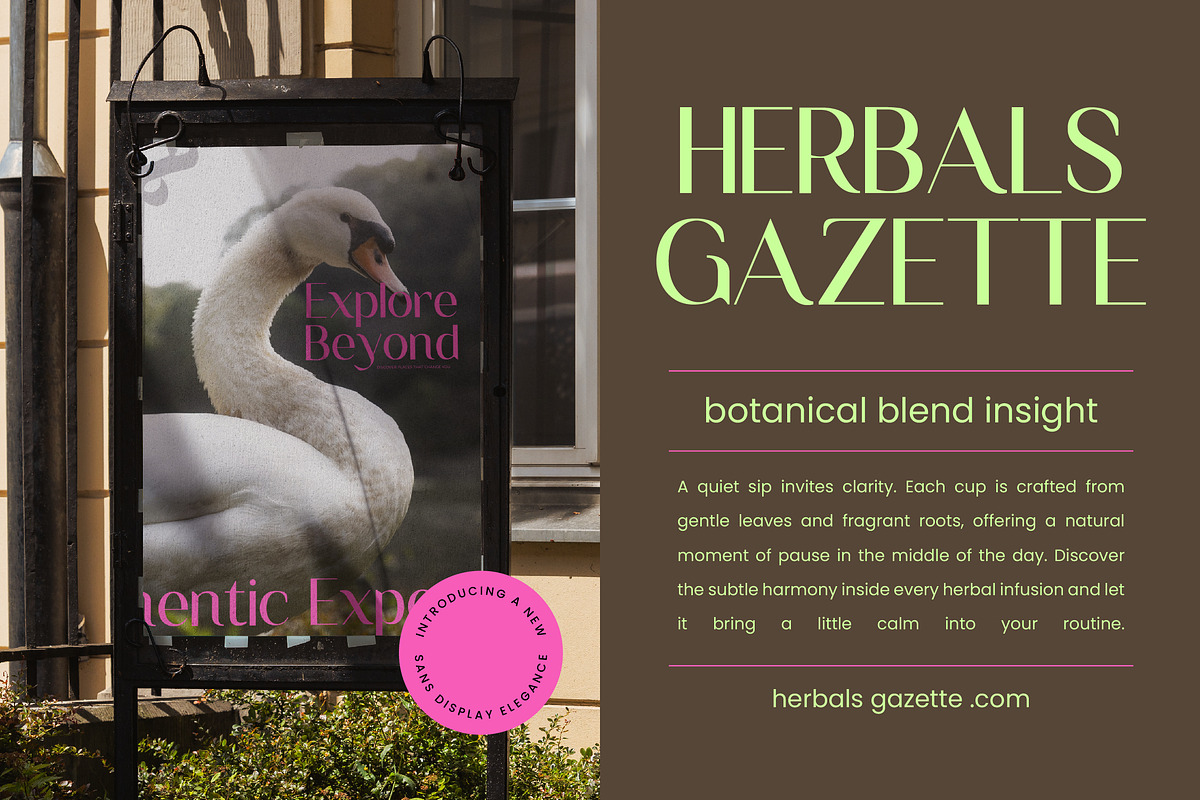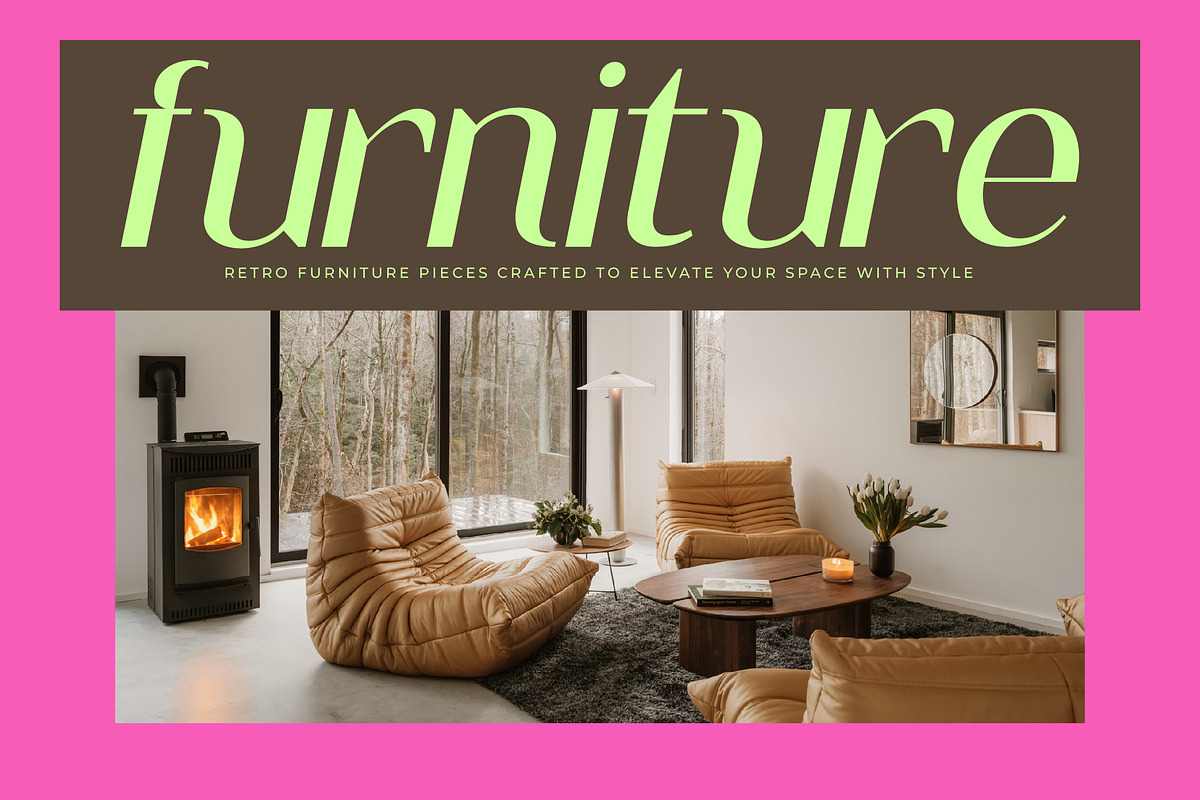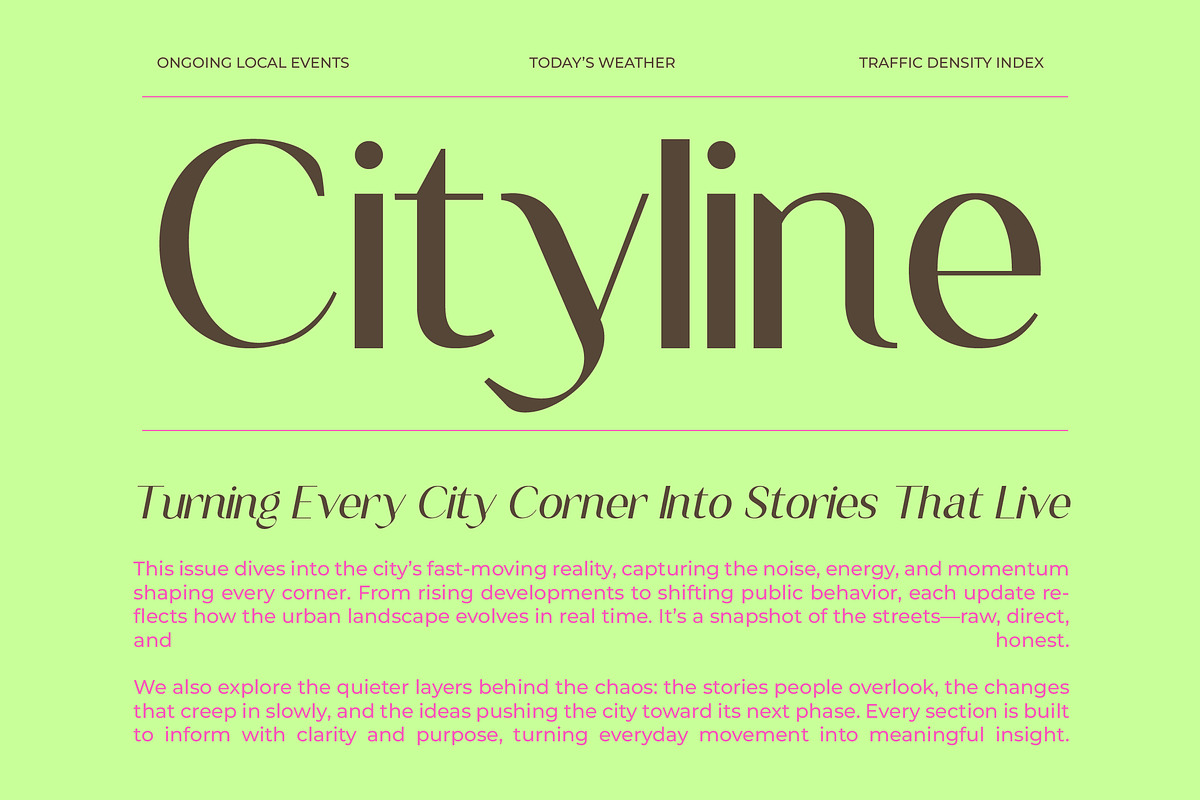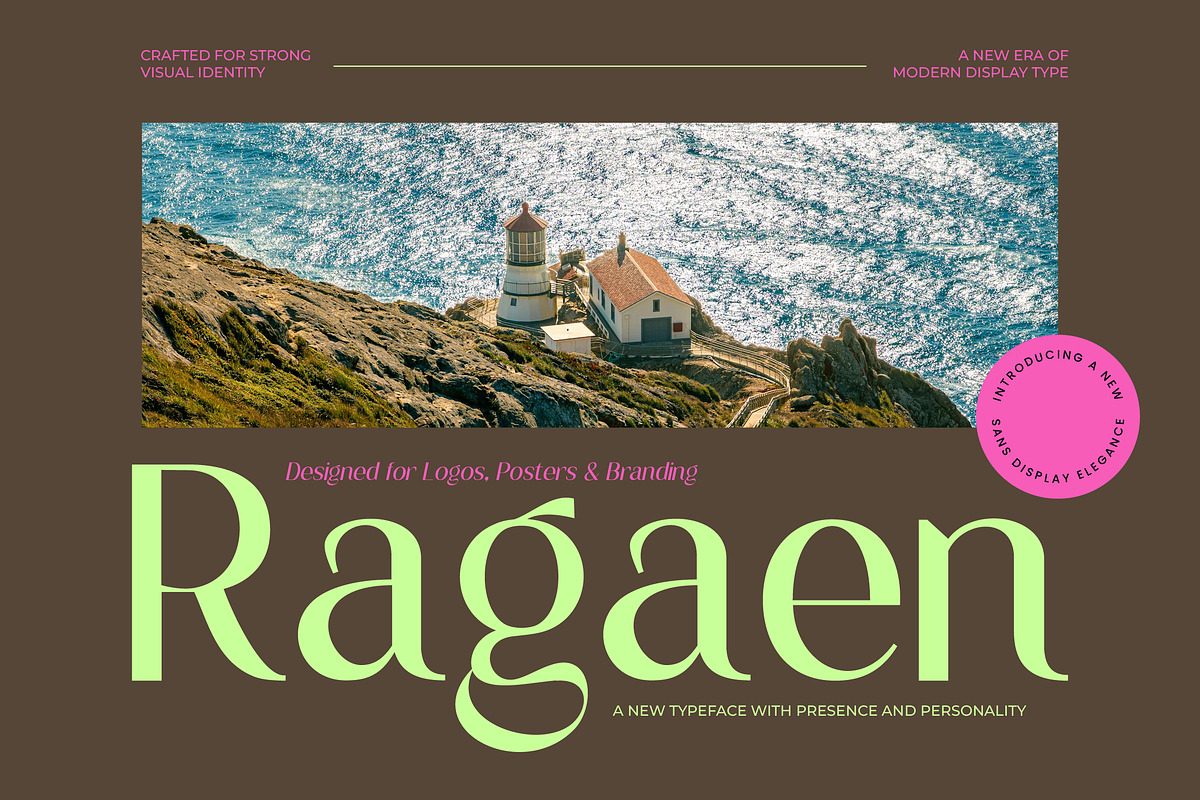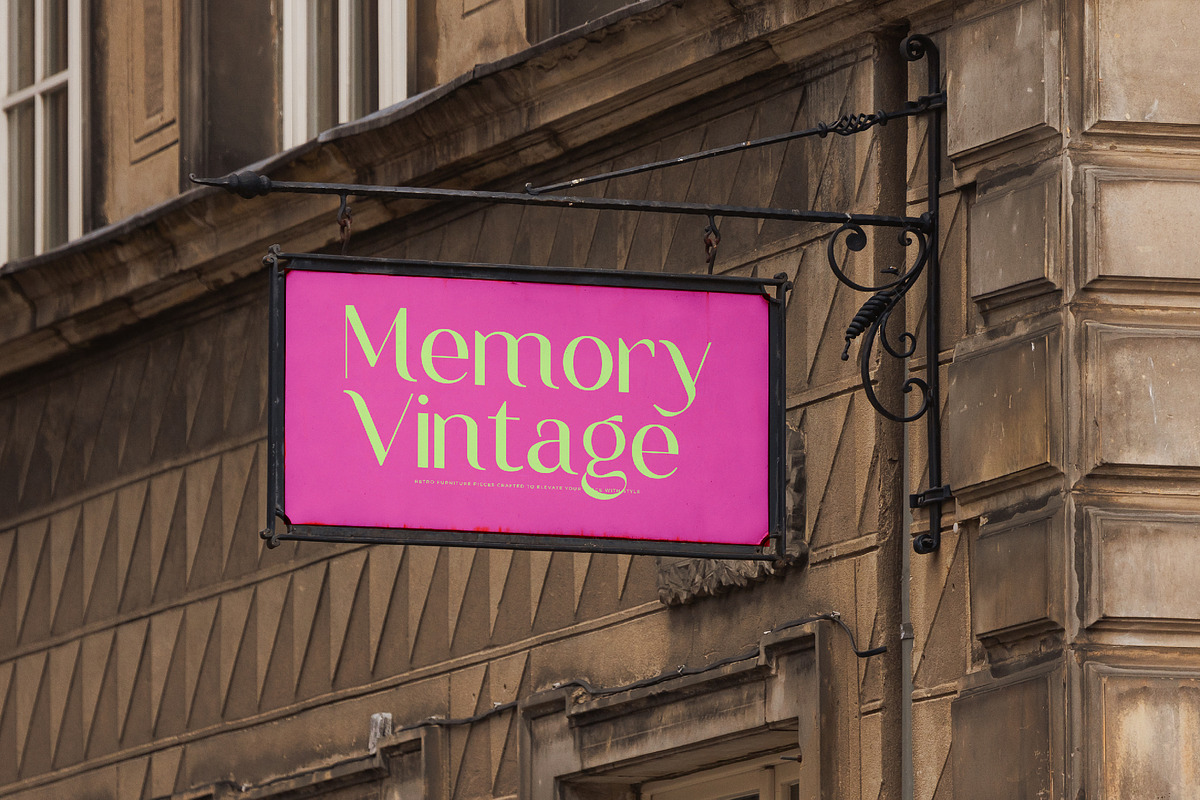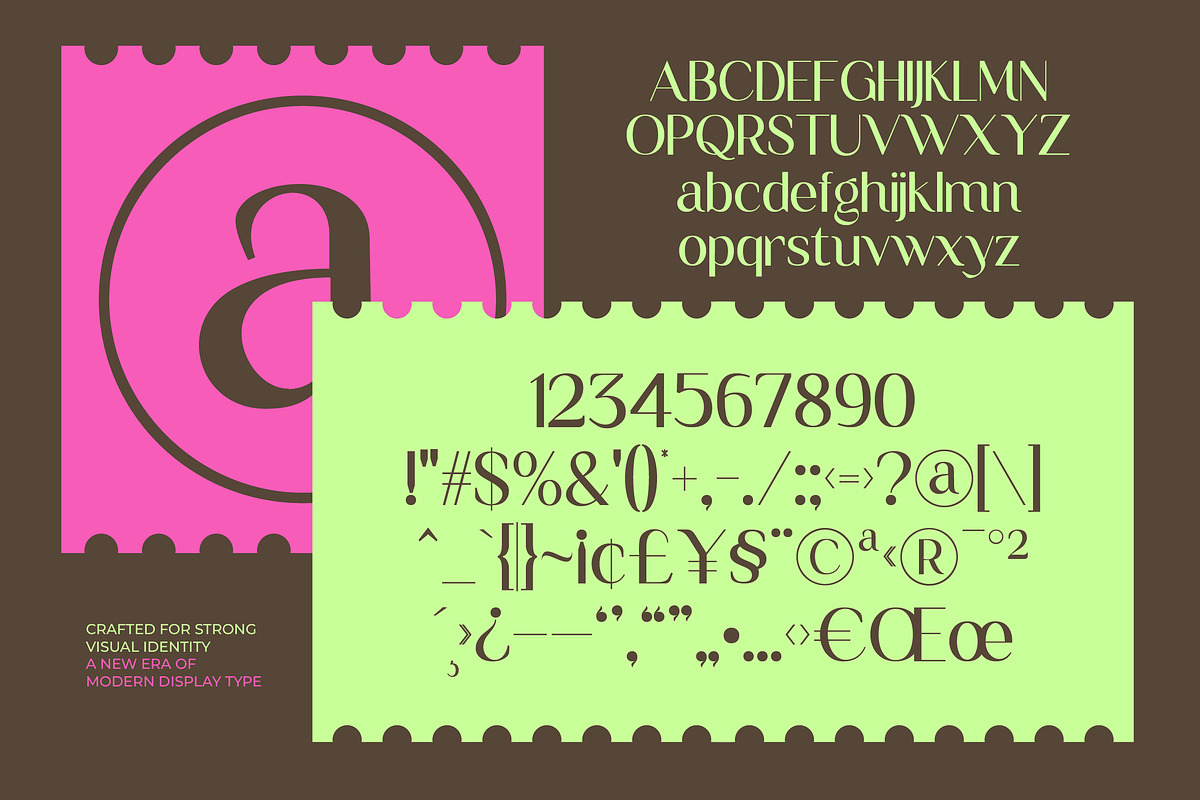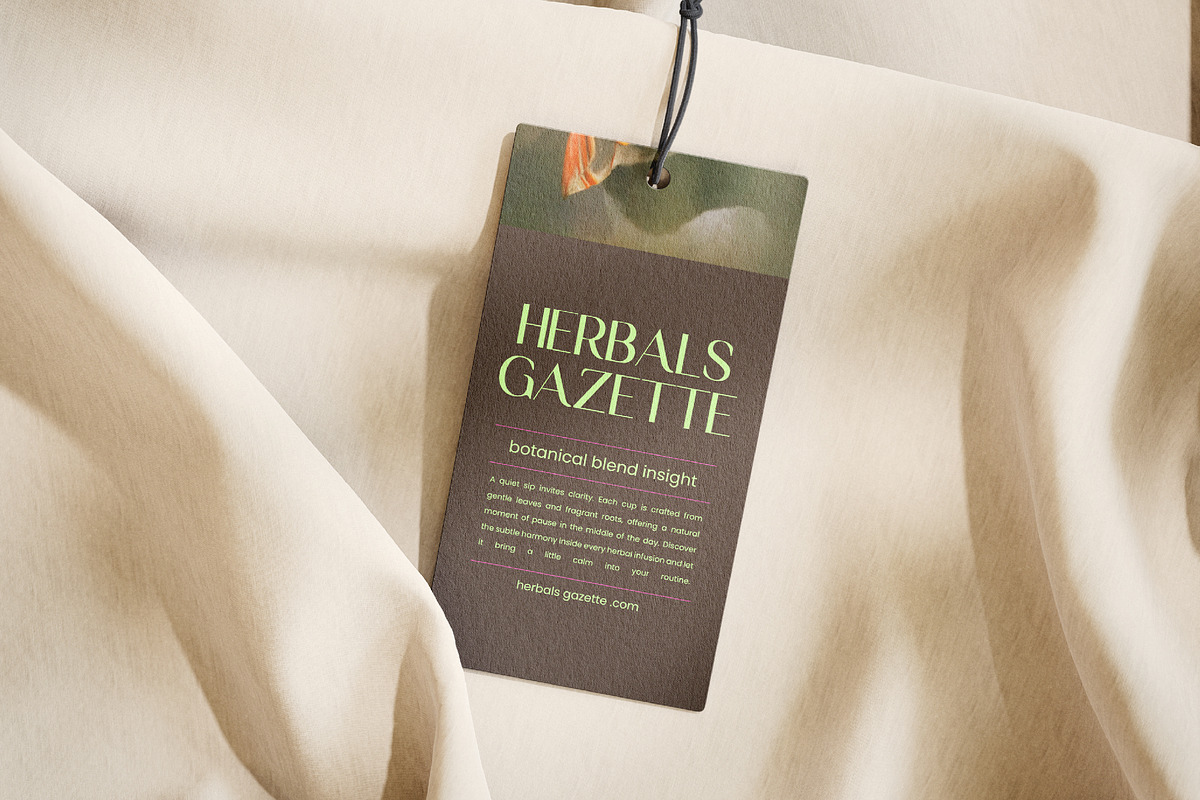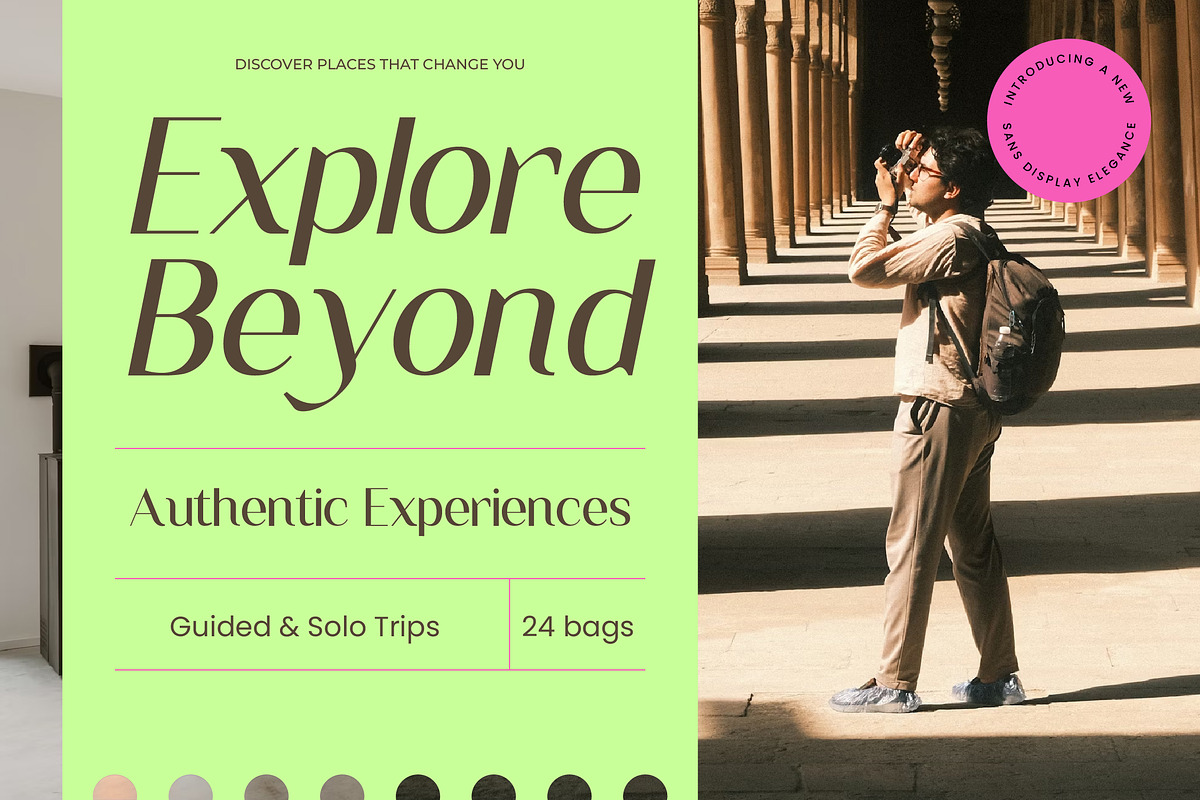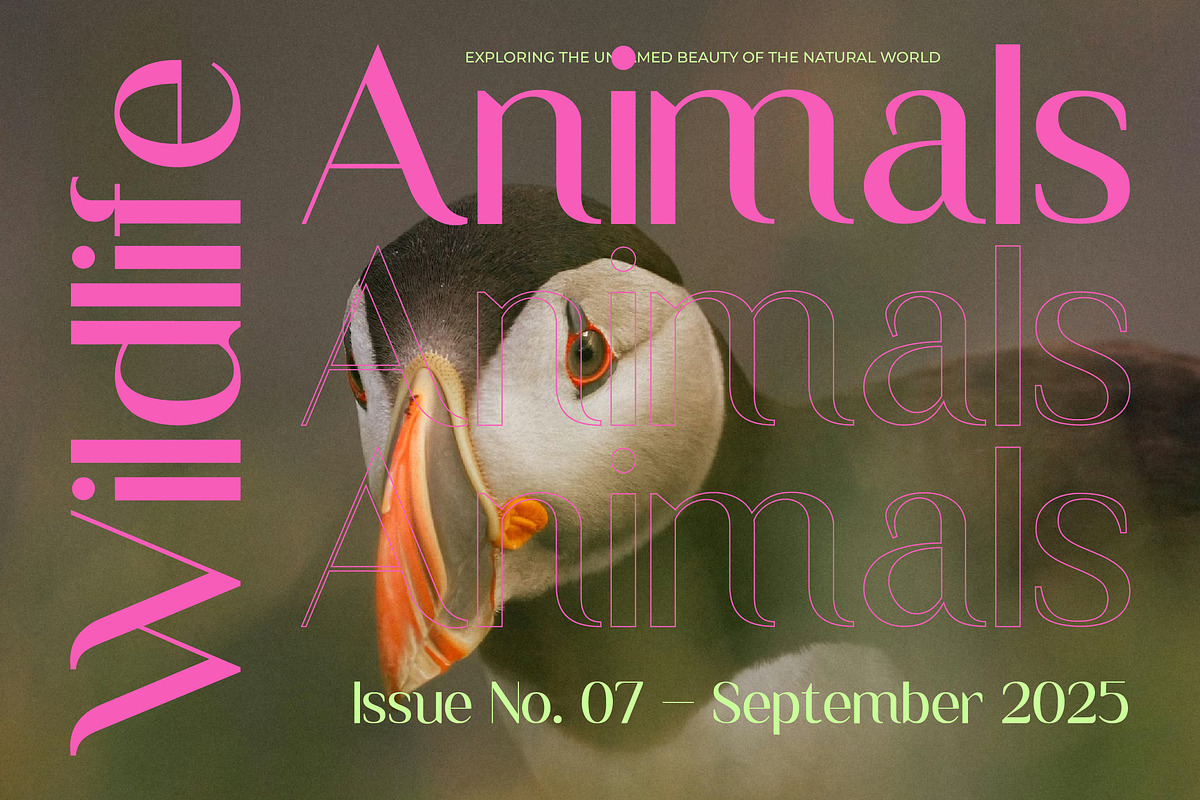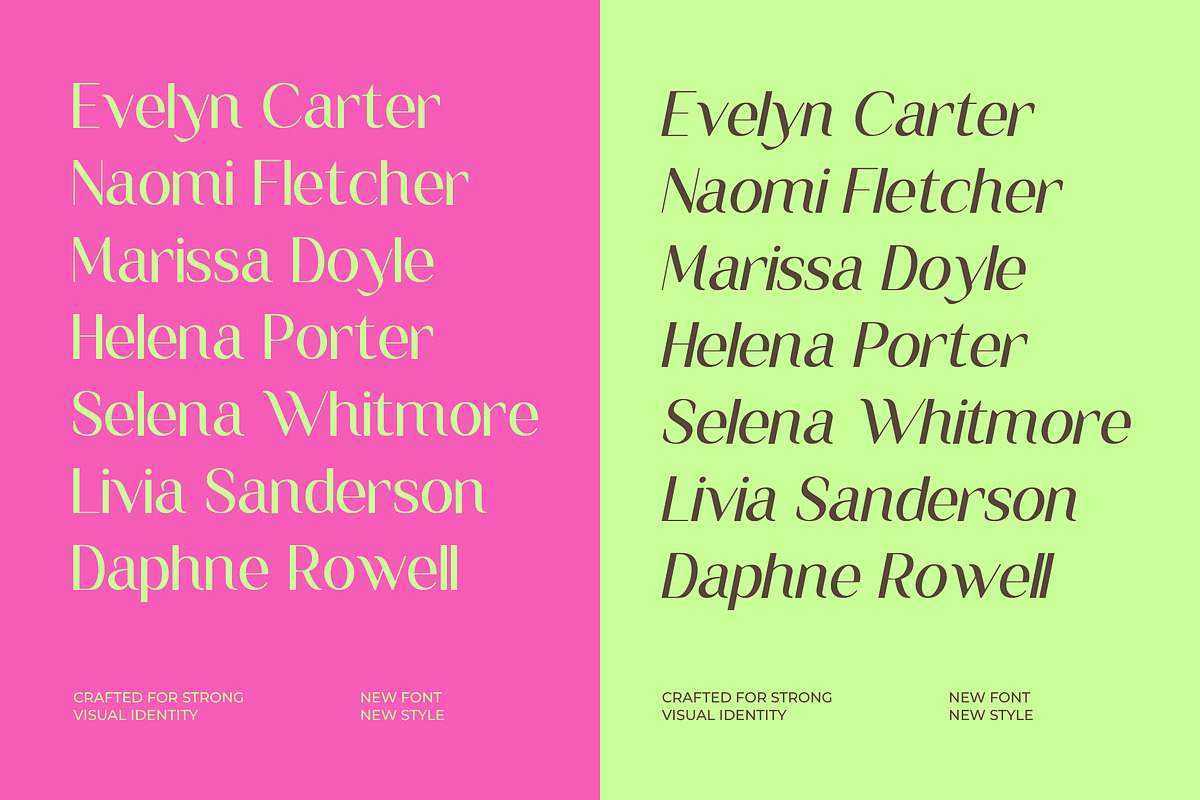
Ragaen Modern Display Sans Serif
Ragaen Modern Display Sans Serif Font
Ragaen font is a unique, modern geometric font with a modern, futuristic, bold, unique, elegant, modern, and geometric style. It is a futuristic display font perfect for branding projects, logos, social media posts, product packaging, labels, etc.